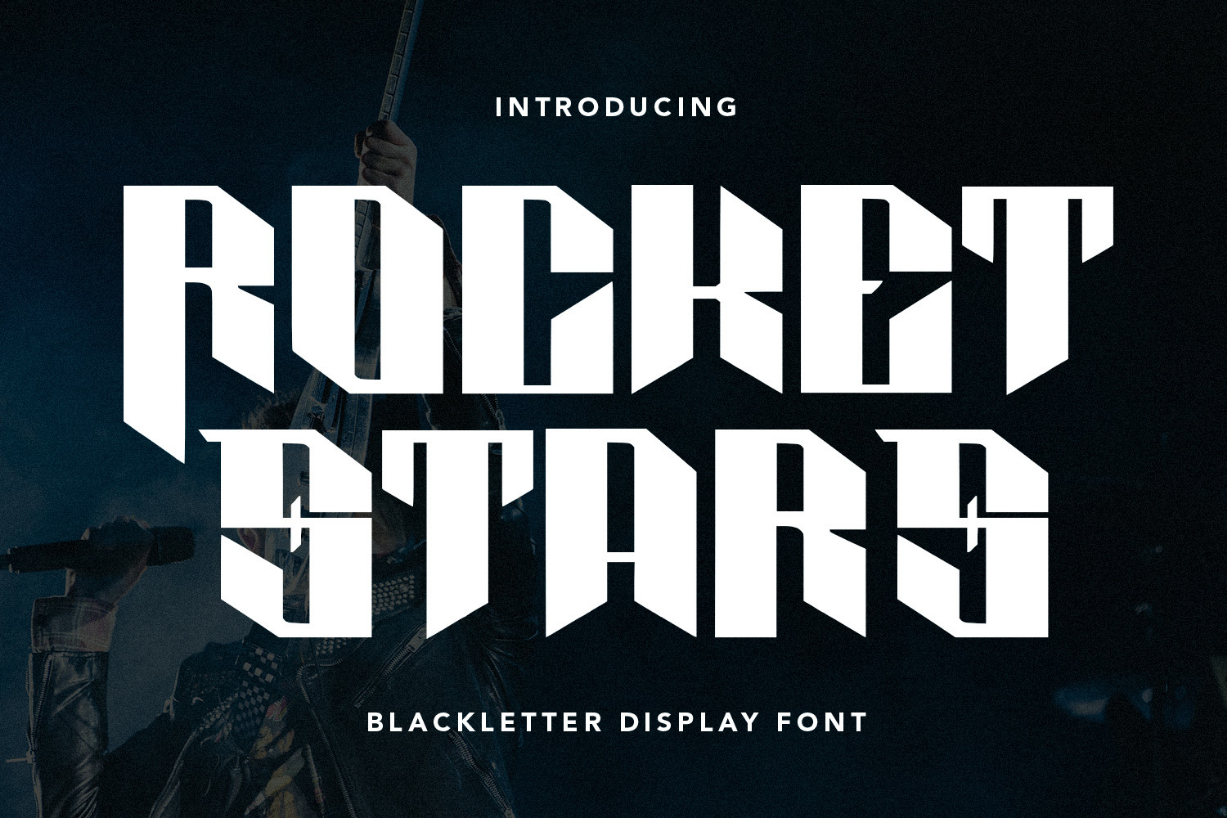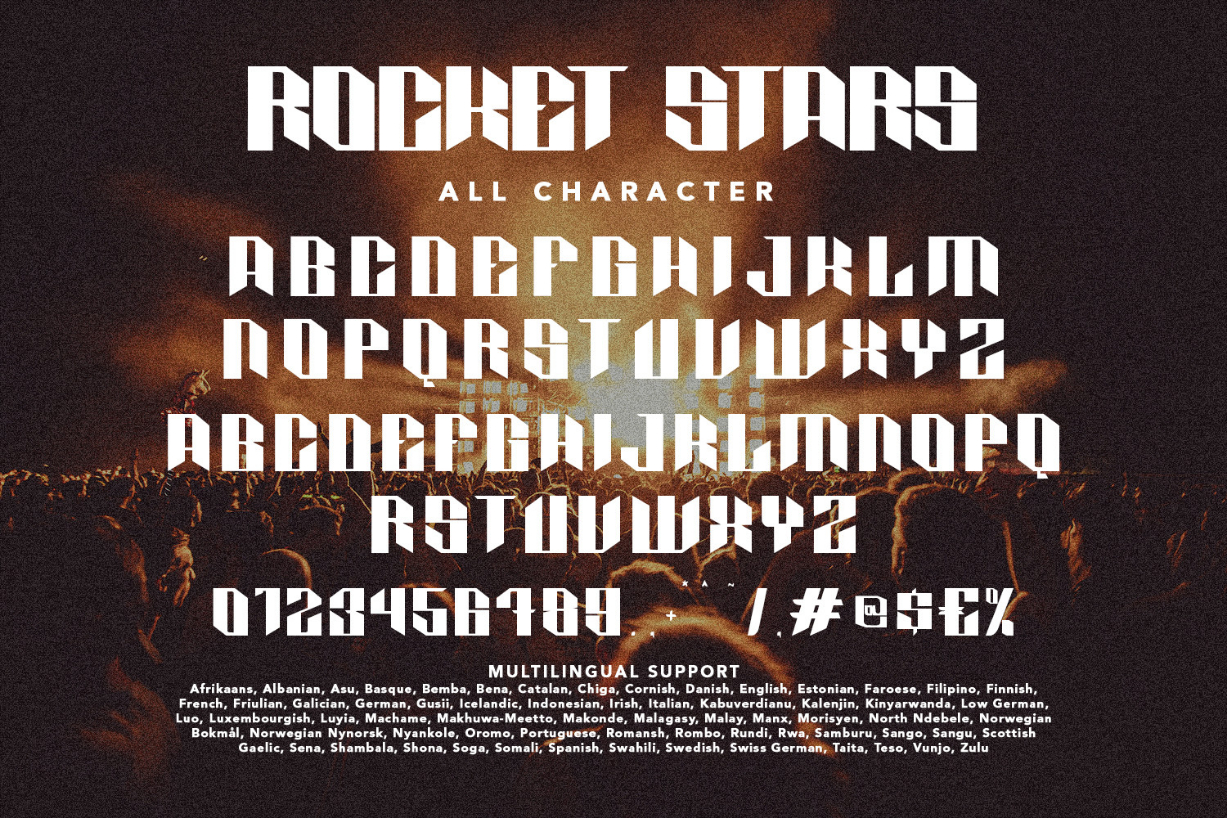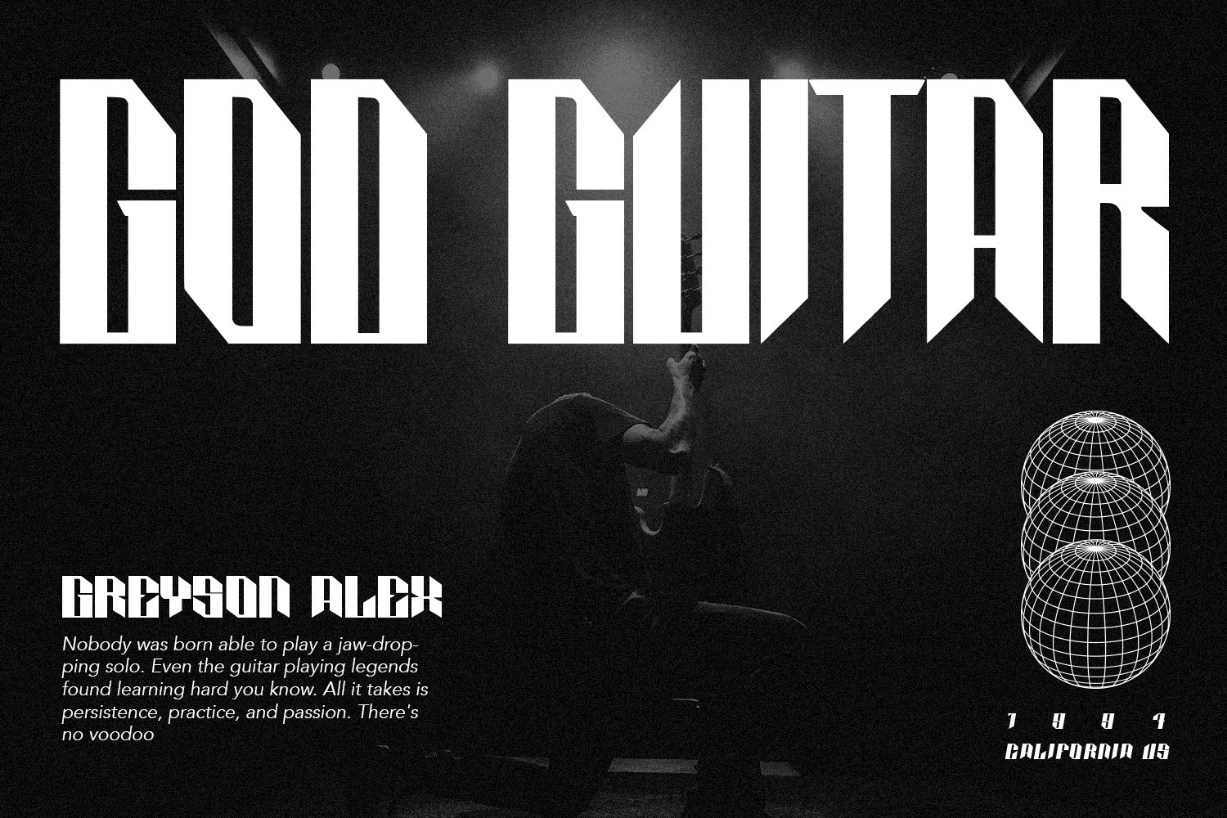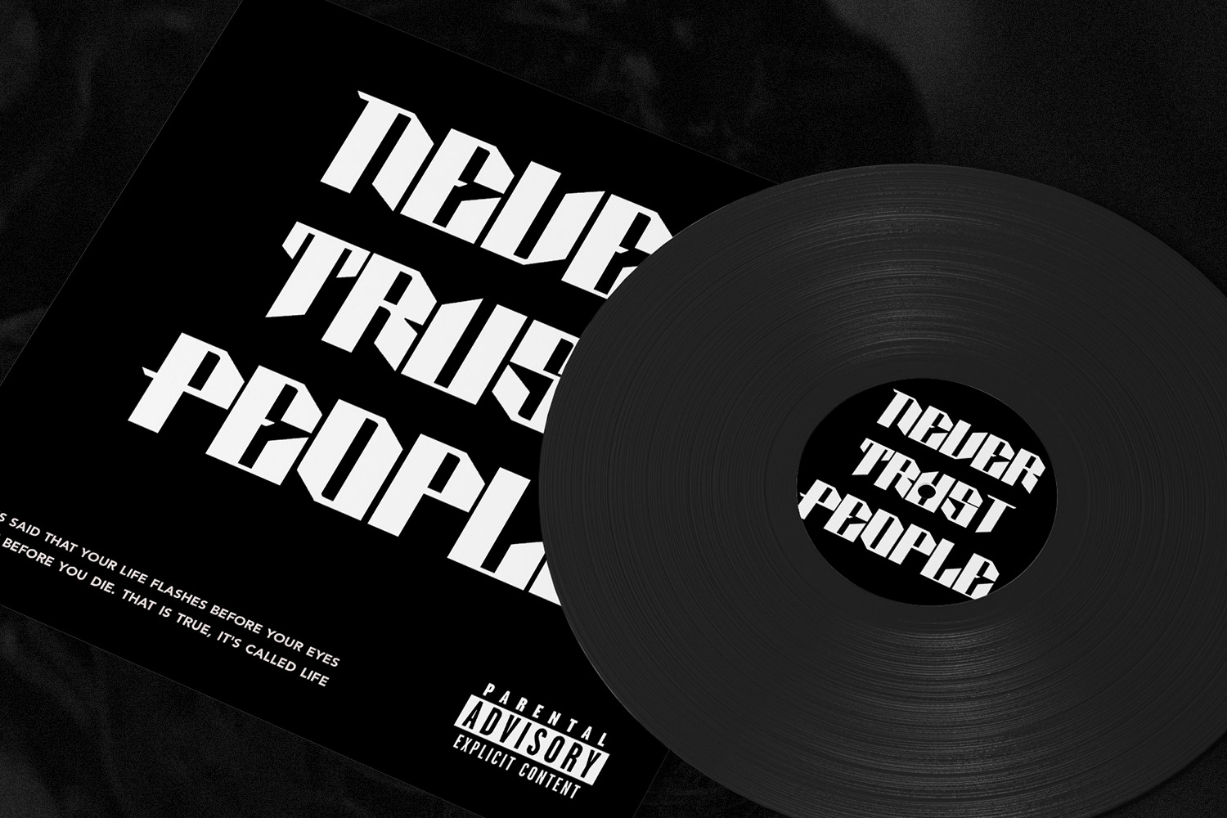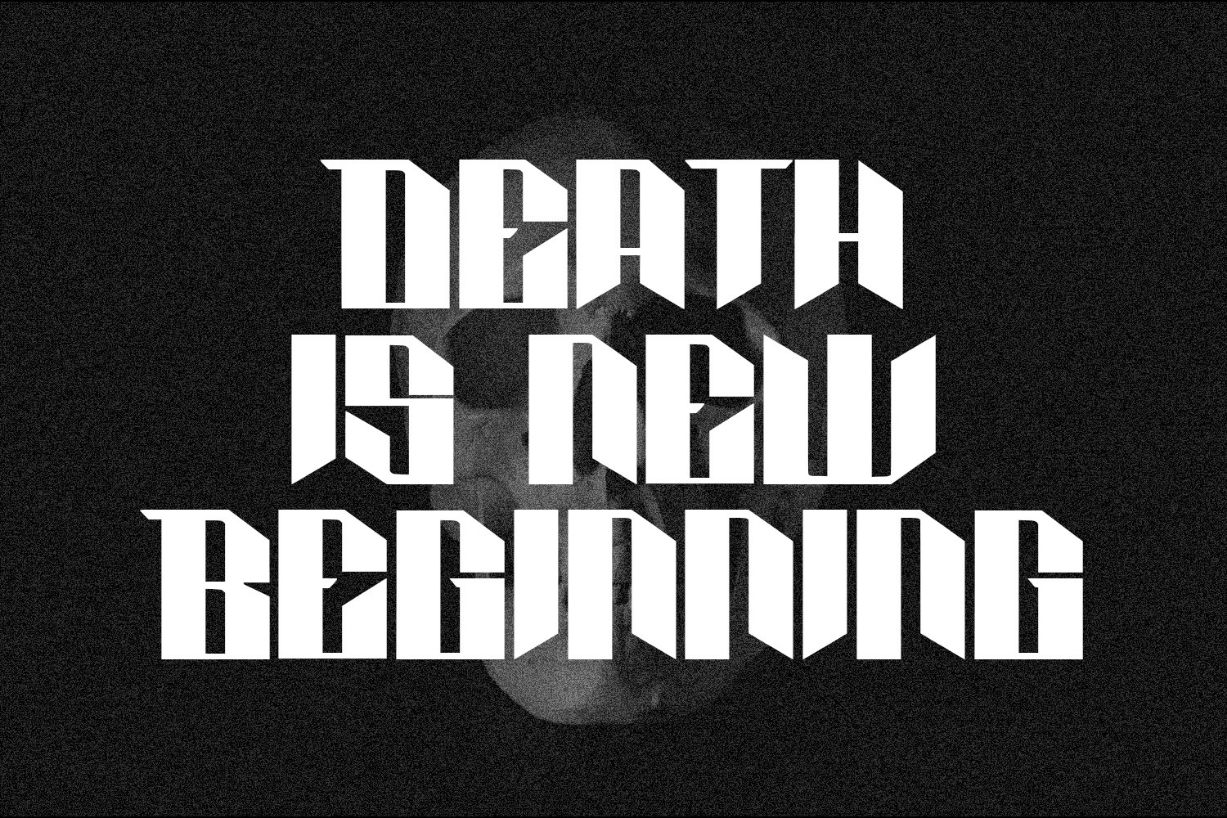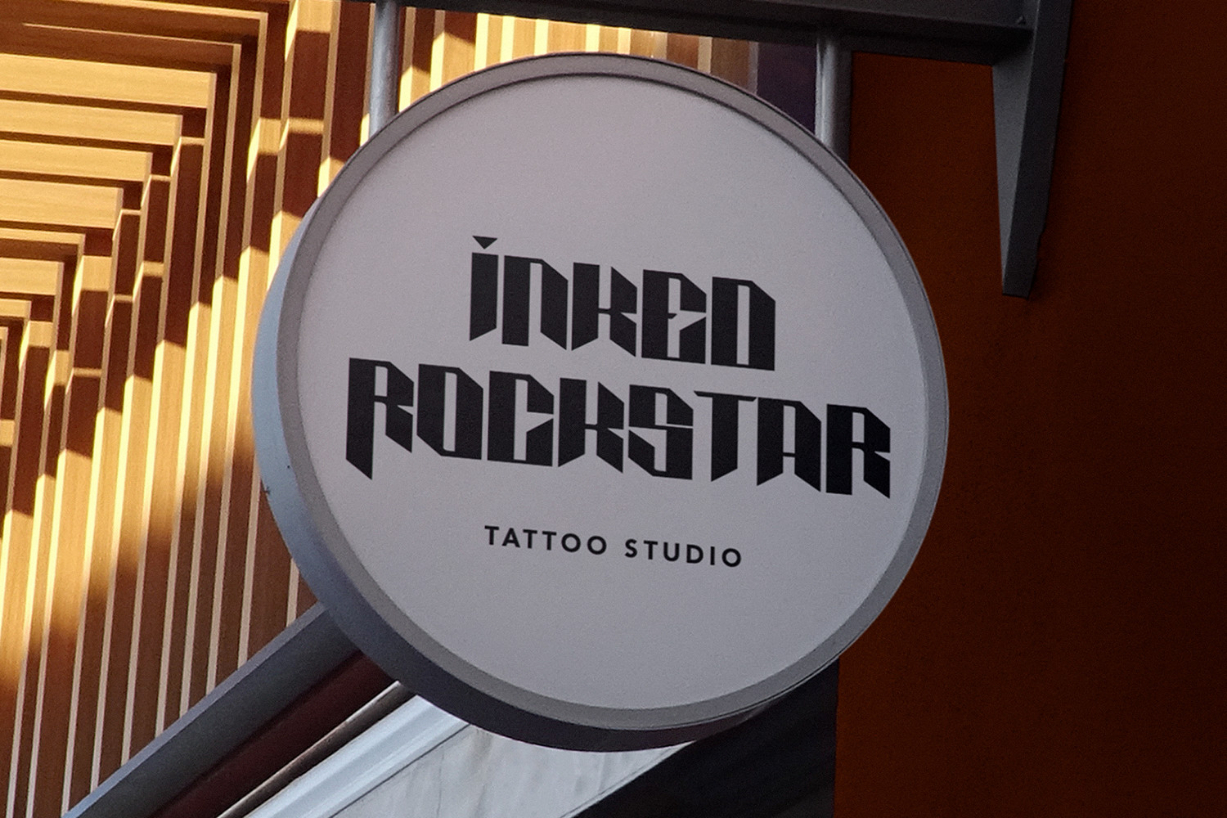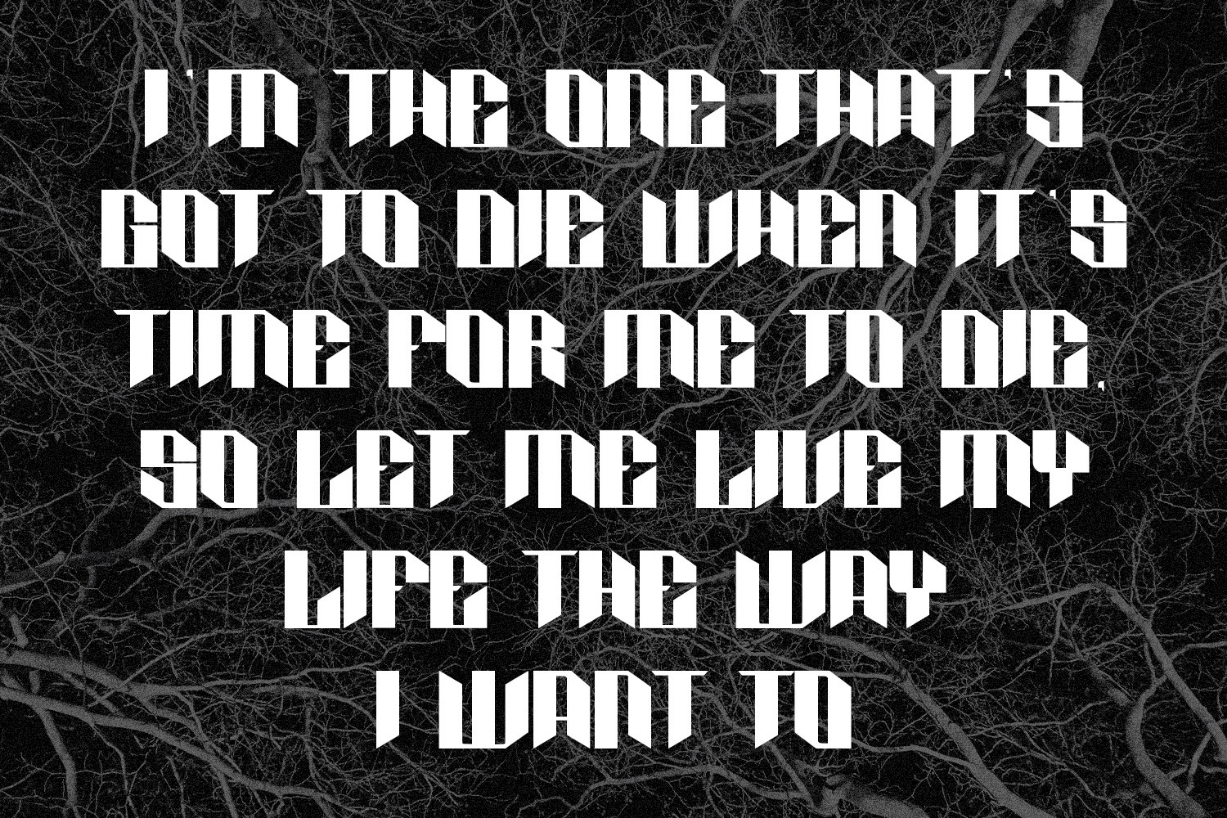
About Rocket Stars Font
Rocket Stars is a tremendous and commanding display font that demands attention with its bold, powerful design. Its imposing characters and strong lines convey a sense of strength and authority, making it ideal for headlines, titles, and logos. With its impactful presence, this font is sure to leave a lasting impression.